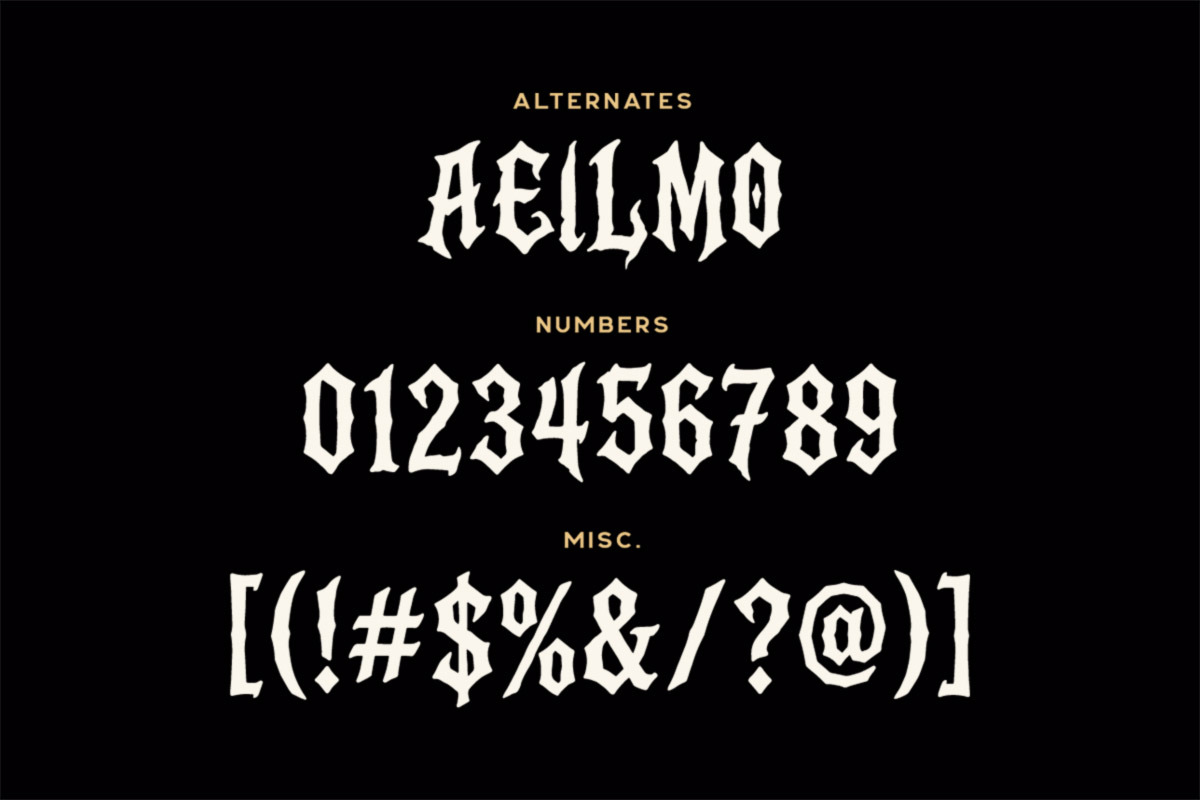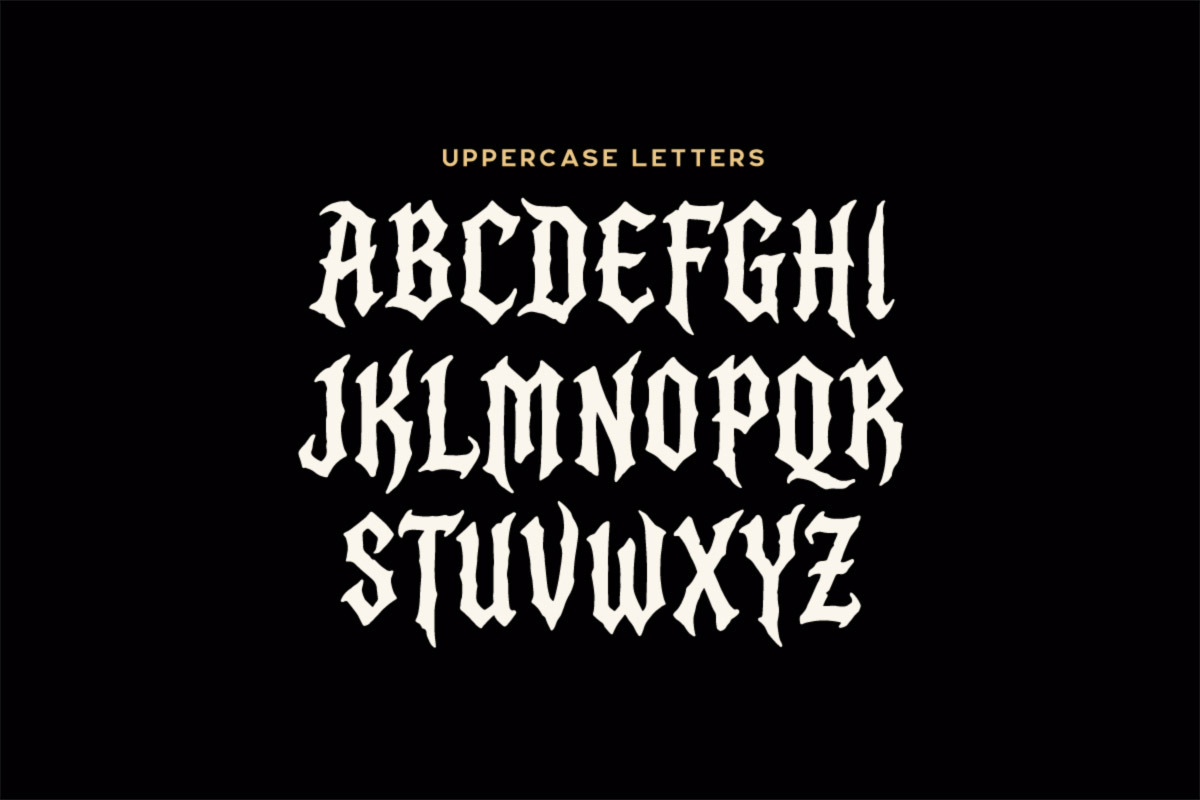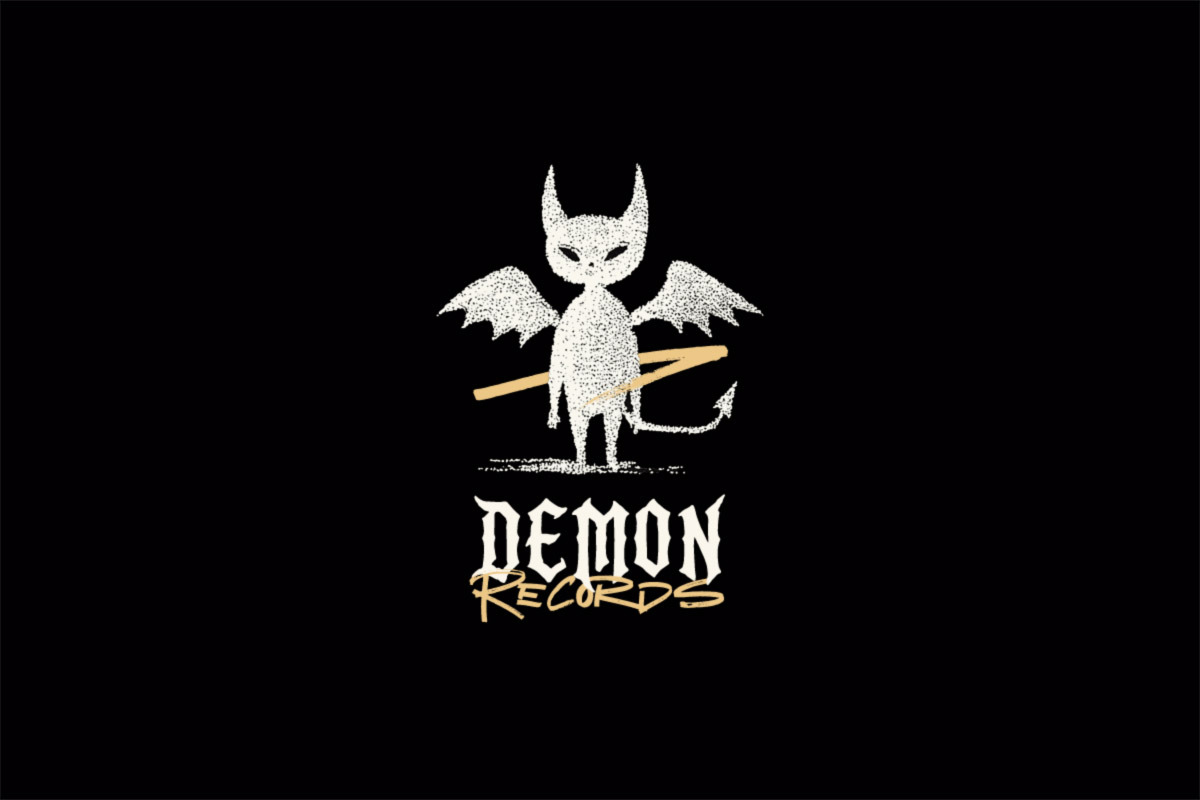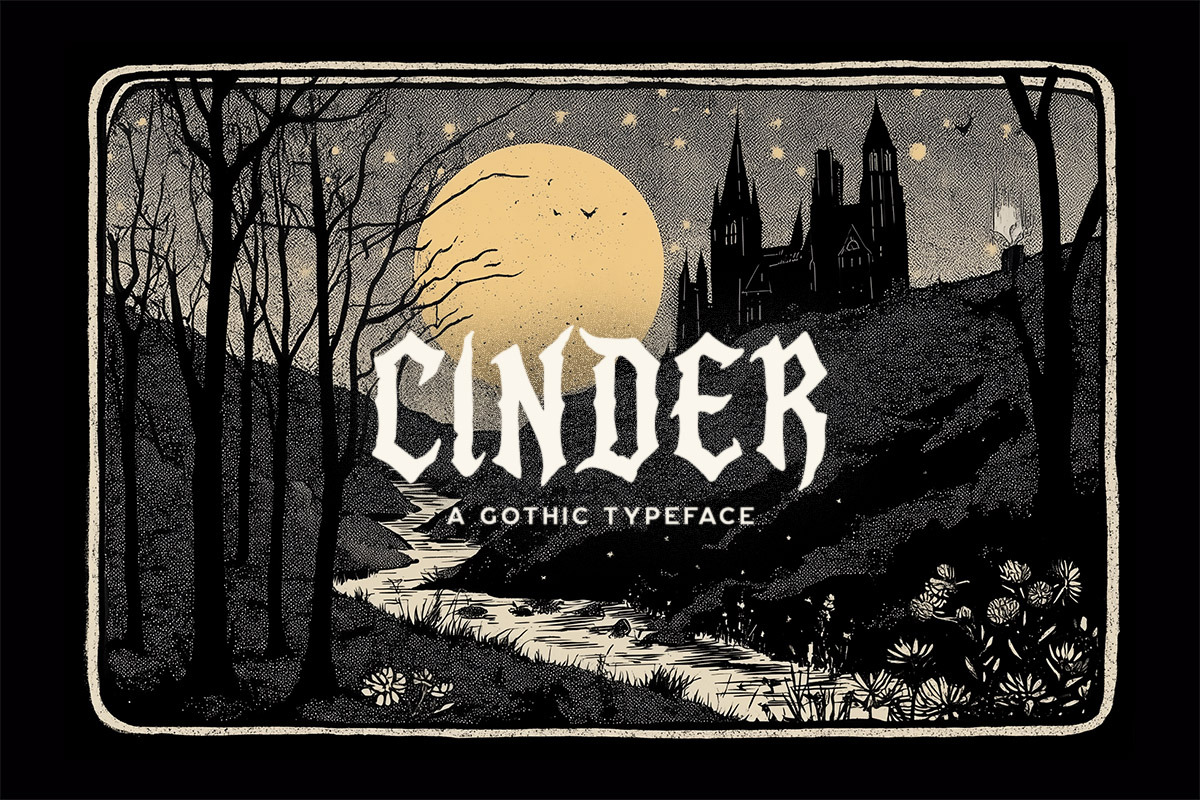
Cinder Typeface
Cinder is a classic gothic display typeface with sharp medieval letterforms and a timeless dark atmosphere. Perfect for fantasy book covers, gothic logos, posters, branding, album artwork, and editorial designs.